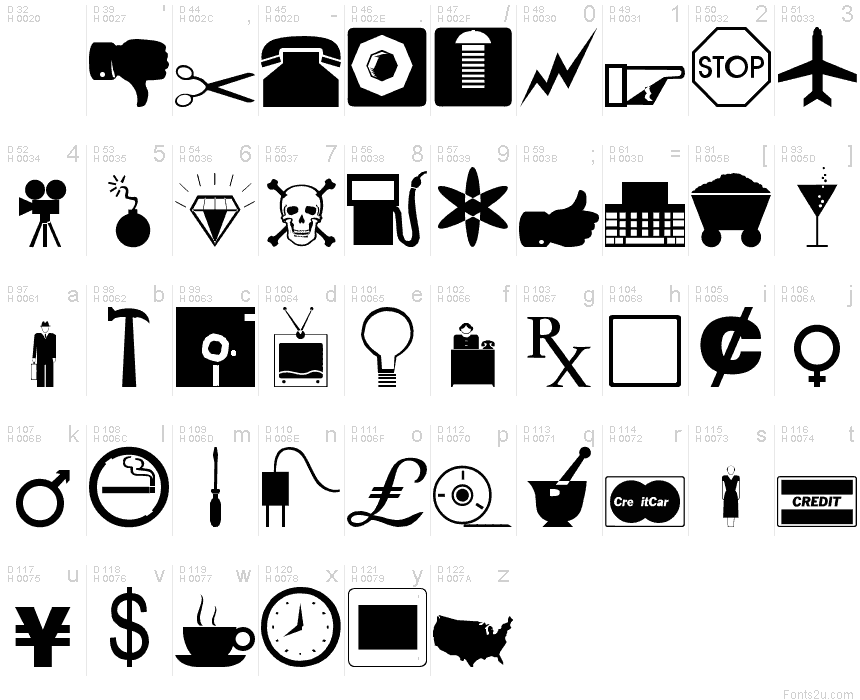
Business/Industrial Regular
Business/Industrial font by Alan Carr is a free dingbat signs typeface that turns everyday office life into bold, black-and-white icons. From crisp silhouettes of workers in suits to chunky currency marks, credit cards, light bulbs, TVs, and no‑smoking circles, each symbol is simple, flat, and instantly readable. The shapes feel sturdy and industrial, like cut vinyl decals ready to be slapped onto doors, dashboards, or dashboards slides.
This free font shines when you need quick visual language without hiring an illustrator: business dashboards, infographics, corporate presentations, training manuals, signage systems, or app wireframes. Using Business/Industrial as oversized spot graphics beside a clean sans-serif text face keeps layouts clear and professional. Keep icons at consistent sizes and weights, and they’ll act like a visual shorthand that guides readers through complex information at a glance.